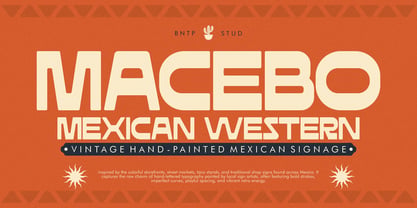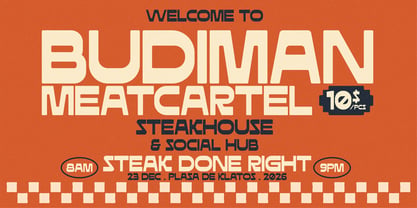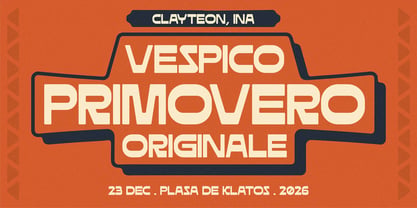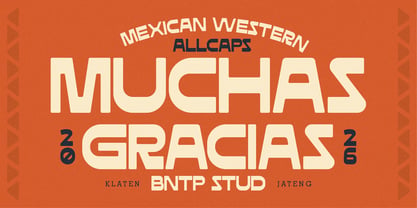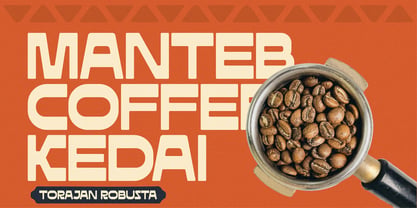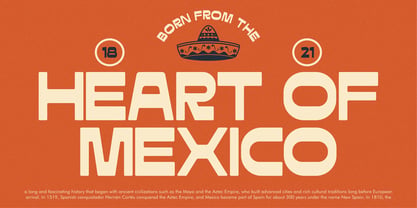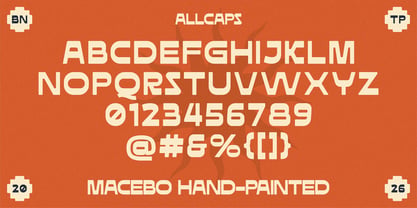
Macebo
by Bentype
The Macebo Font Family was designed by Muhammad Farkhan and published by Bentype. Macebo contains 1 styles. More about this family
Macebo - Mexican Western Display Font is a Bold, playful, and full of vintage energy, this hand-painted Mexican western style font brings a strong retro atmosphere inspired by old cantina signs, desert culture, and classic Latin street typography. With its chunky geometric shapes, unique curves, and handcrafted character details, this typeface is perfect for posters, branding, packaging, restaurant themes, festival designs, and any creative project that needs a warm, authentic, and adventurous vintage vibe.
Designers: Muhammad Farkhan
Foundry: Bentype